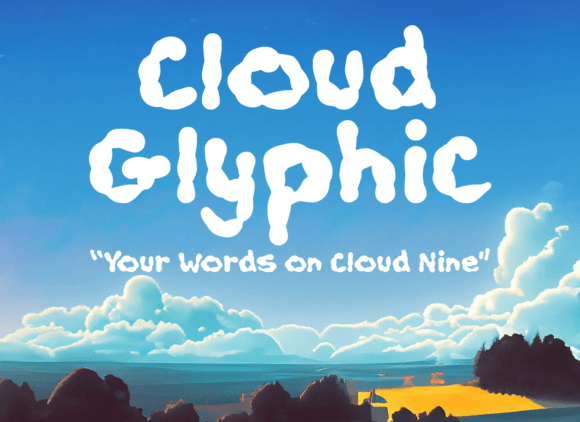
Dive into the ethereal world of CloudGlyphic, a decorative font that transforms your creative projects into dreamy masterpieces. Inspired by the boundless beauty of the sky, this font captures the essence of the clouds in every character.
Unleash your imagination and let CloudGlyphic elevate your art and craft projects to new heights. Designed to bring a touch of magic to your words, this font is more than just an aesthetic choice; it's an experience.